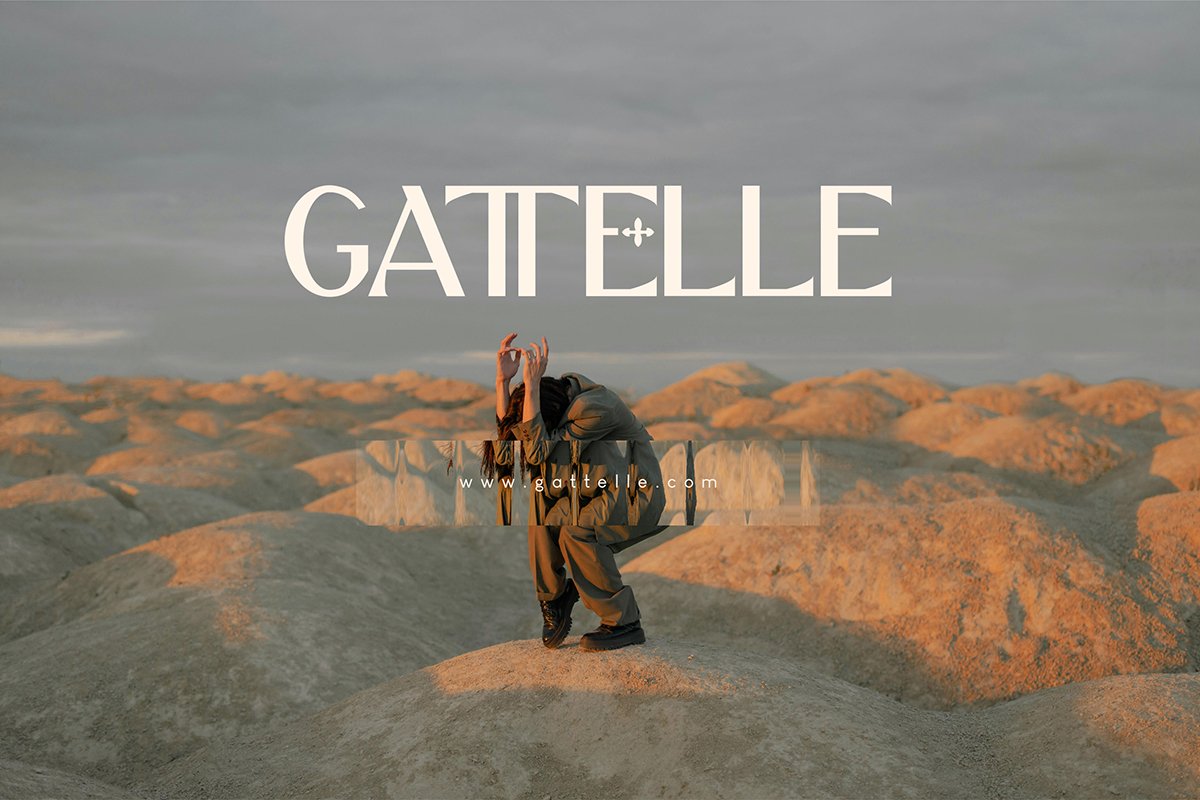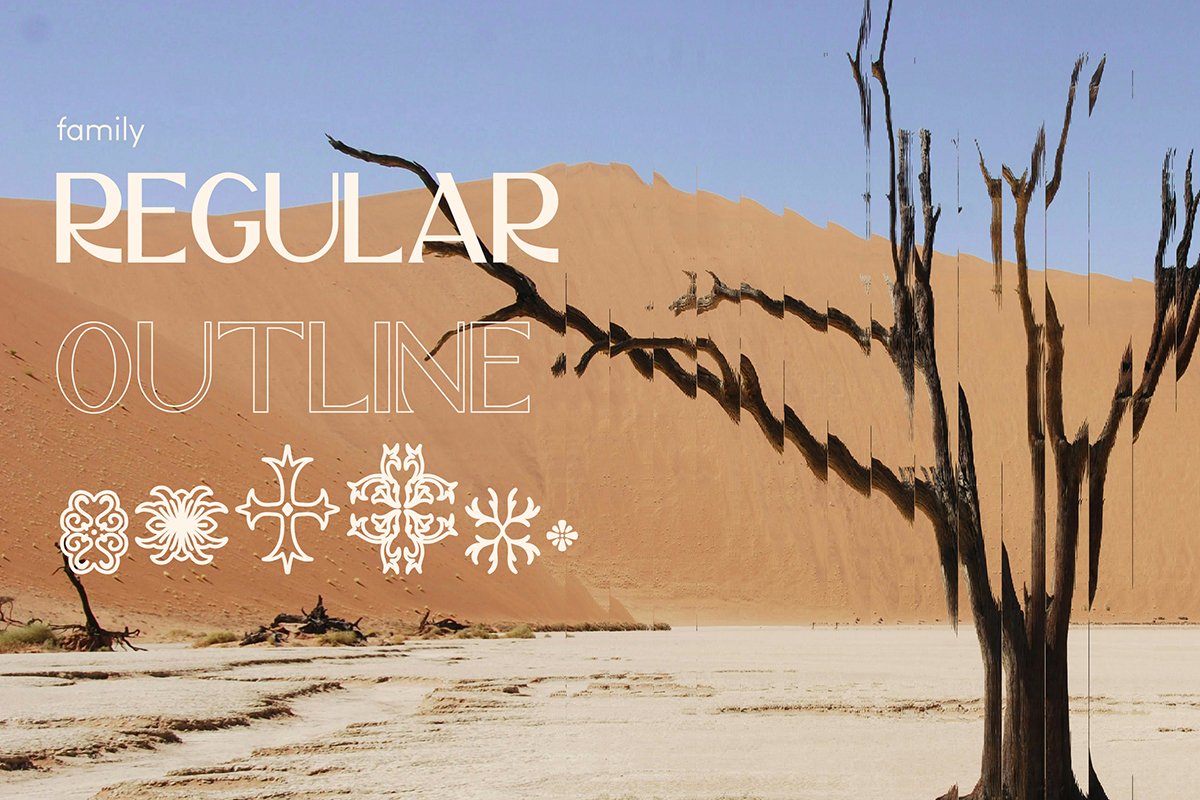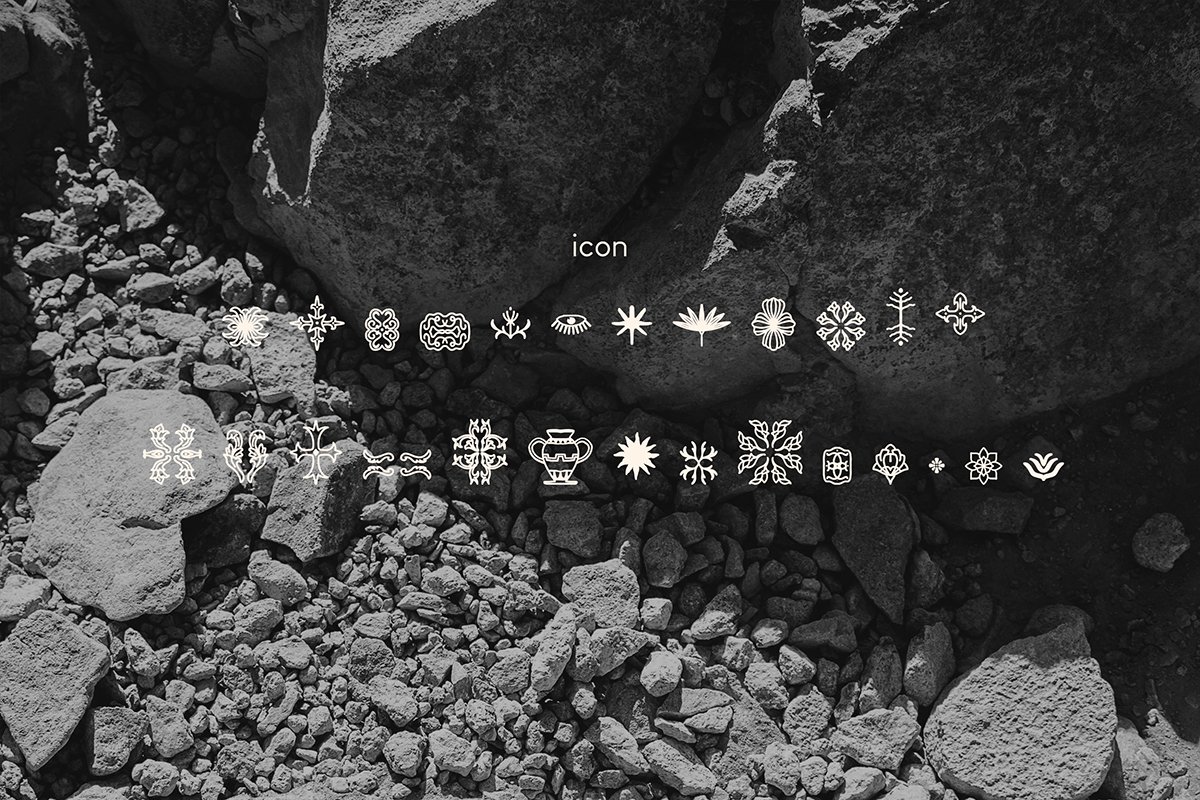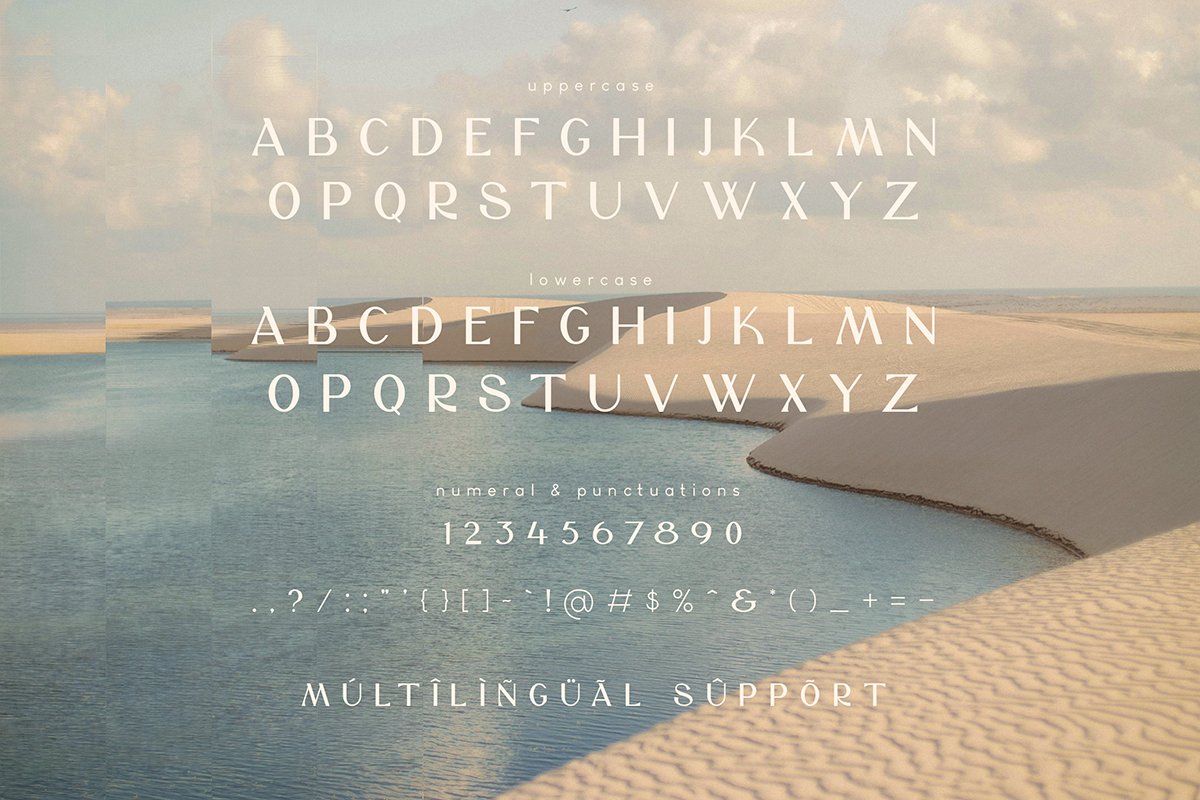
Carmana – Serif Font is a stylish, modern font with sharp angles, clean lines, and elegant curves. It combines classic sans-serif elements with contemporary geometric details, creating a refined and luxurious look. Perfect for branding, editorial design, logos, and high-fashion projects, Carmana exudes sophistication and exclusivity. Its unique letterforms, subtle cut-out strokes, and smooth curves add a distinctive and elegant touch.
- AuthorHishand Studio